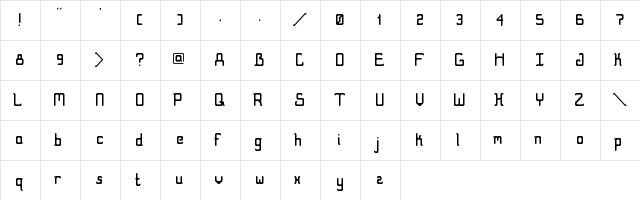
Friendly Robots Regular
| Designer | lc1820 |
Design Context for Friendly Robots Typeface
Friendly Robots is a composed and adaptable typeface that performs quietly and consistently across a wide range of design contexts.